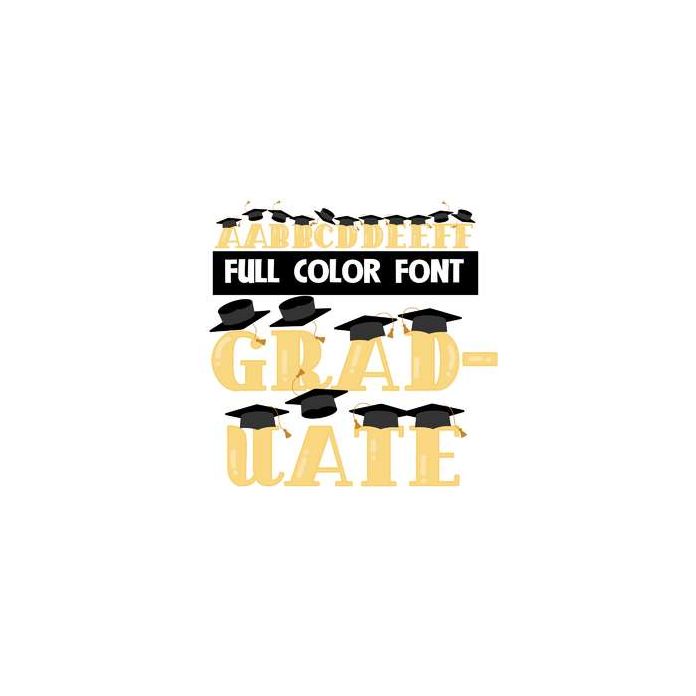
This full-color font features gold letters with mortar board caps. This font works best for titles, displays, posters and more. Please note color fonts will show as black in non compatible programs. This font type is compatible with Silhouette Studio.